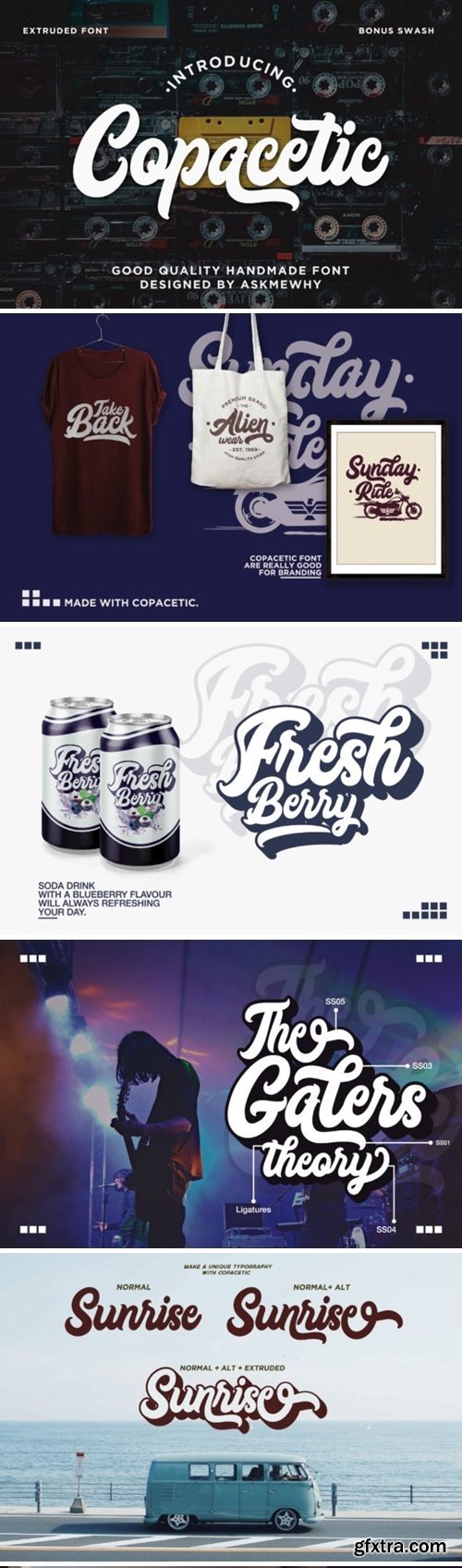
Copacetic - Lemme introduce my second font, it's a handlettered font that really natural , cool & modern handlettered font. I'ts Perfect for logo, branding, stationery, social media posts, advertisements, product packaging, product designs, label, photography, watermark, special events or anything. This font include : Copacetic,Copacetic-extrude